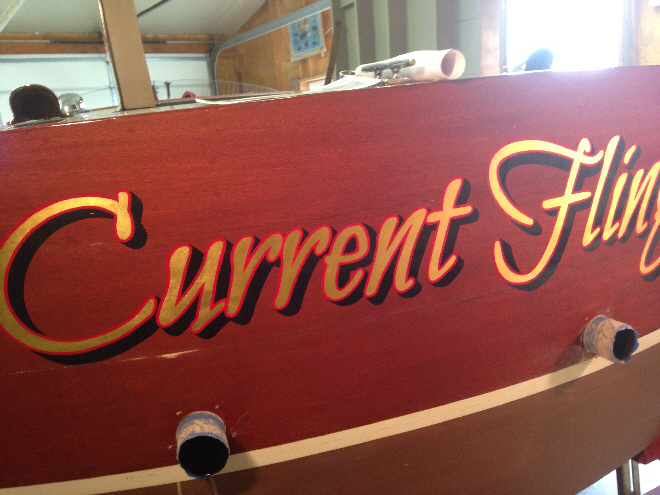
I am doing a wood transom tomorrow.
It will be 23K, non-burnished, with a
Red Outline & Black Shade.
The customer will Varnish over the Job.
1- Would you Size, Gild and Clear the Gold ?
2- Size, Gild, Outline Red & finish the Black
Shade, with no Clearcoat ?
My thought is after he applies the Varnish over the Gold &
Paint, the Varnish should not affect anything.
(sorry to be late, you will have the job done by the time this is posted..)
My feeling on gold leaf is that you try to NOT overvarnish it - the color is dulled and the longevity is compromised.
But if it will be rubbed (as on a vehicle or boat) then I like to spin the gold first. My imagining is that the velvet makes a series of tiny circular dents in the gold, like a vinyl record but much smaller, and when the clearcoat goes over it the little valleys act as lenses. In any case, spinning makes up for some of the lost brilliance.
On boats I would do as you suggest in (1): size, gild, (spin,) overvarnish and let dry. Then when you come back the gold is protected and if you make a mistake your paint can be wiped off without affecting the gold. That is of course the coward's way.
If you go with no varnish, as in (2), then one needs to check what kind of clearcoat is being applied - the size under the gold does not cure as fast as the other paints. But it does mean that all the clears are the same, which should be a good thing.
Hi Lee.
to size, leaf, burnish without Engine Turning and Shade 1st Day.
I then Cleared with Sikkens and Outlined the Red on the 2nd Day.
They did not want the Spin in the Gold, they wanted the Matte finish look.
I cleared the Gold because he said that would help him when he applies
the Varnish. Since it is a New customer, I felt by clearing the Gold, no
harm.
Nice job. And with the shade dry you can clean up the edges with the red on 2nd day.
Good to see the boat is indoors.
When you were wiping off the extra gold did you do the final wipe in a horizontal direction? It's not really spinning, but even a light wipe with velvet or cotton will leave some micro-scratches, and most inscriptions read better if they have a horizontal 'grain'.
Yes Lee, I lightly wiped left to right.
What kind of Clear do you use, if needed ?
then sanded it to remove the Sheen. This helps the Size to adhere as well
as the next coat of Varnish. I am sure the more coats of Varnish over the Lettering
would achieve the look you describe.